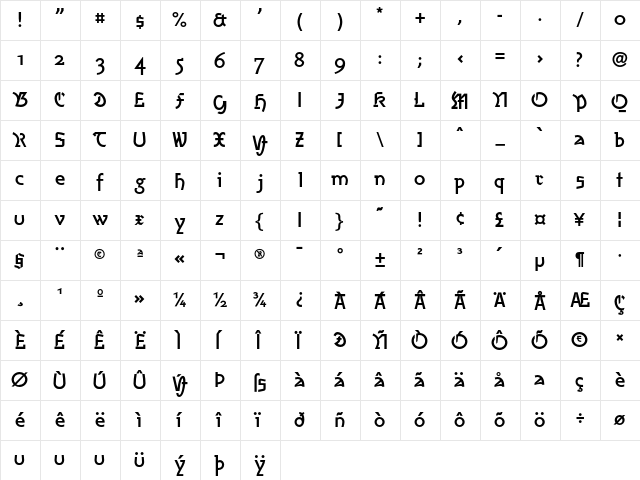
AmherstFraktur LT Std Regular Bold
| Foundry | Linotype GmbH |
| Designer | Richard Yeend |
Design Context for AmherstFraktur LT Std Regular Typeface
AmherstFraktur LT Std Regular channels the dramatic heritage of Fraktur and Gothic scripts, bringing a sense of historical gravitas to any design. Its bold stroke weight gives it real presence on the page.
A natural fit for music packaging, gothic editorial design, and any project that needs historical weight.
Font Pairing: Pair with a clean neutral sans-serif for body copy to let AmherstFraktur LT Std Regular's character lead without overwhelming the composition.
Pro Tip: Reserve AmherstFraktur LT Std Regular for display and logo use — pair it with a clean sans-serif for body copy to prevent the composition from feeling oppressive.